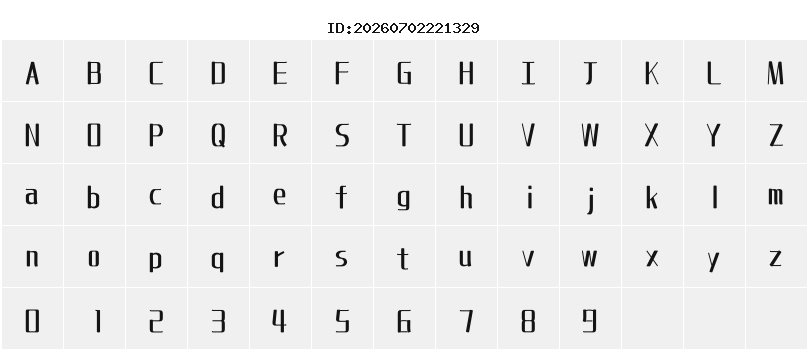
201-上首鹊桥体 Preview
• Font Name: 201-上首鹊桥体
• Font ID: 201-SSQueQiaoTi:Version 4.00
• Full Font Name: 201-上首鹊桥体
• Version: Version 4.00 December 20, 2022
• PostScript Name: 201-SSQueQiaoTi
• Character Count: 7567
• Manufacturer: 上首造字
About 201-上首鹊桥体.ttf
201-上首鹊桥体.ttf is a modern, elegant sans-serif font designed for ultimate readability and visual harmony. Perfect for branding, headlines, web design, and print materials.